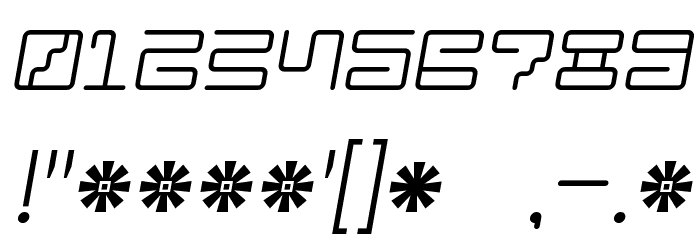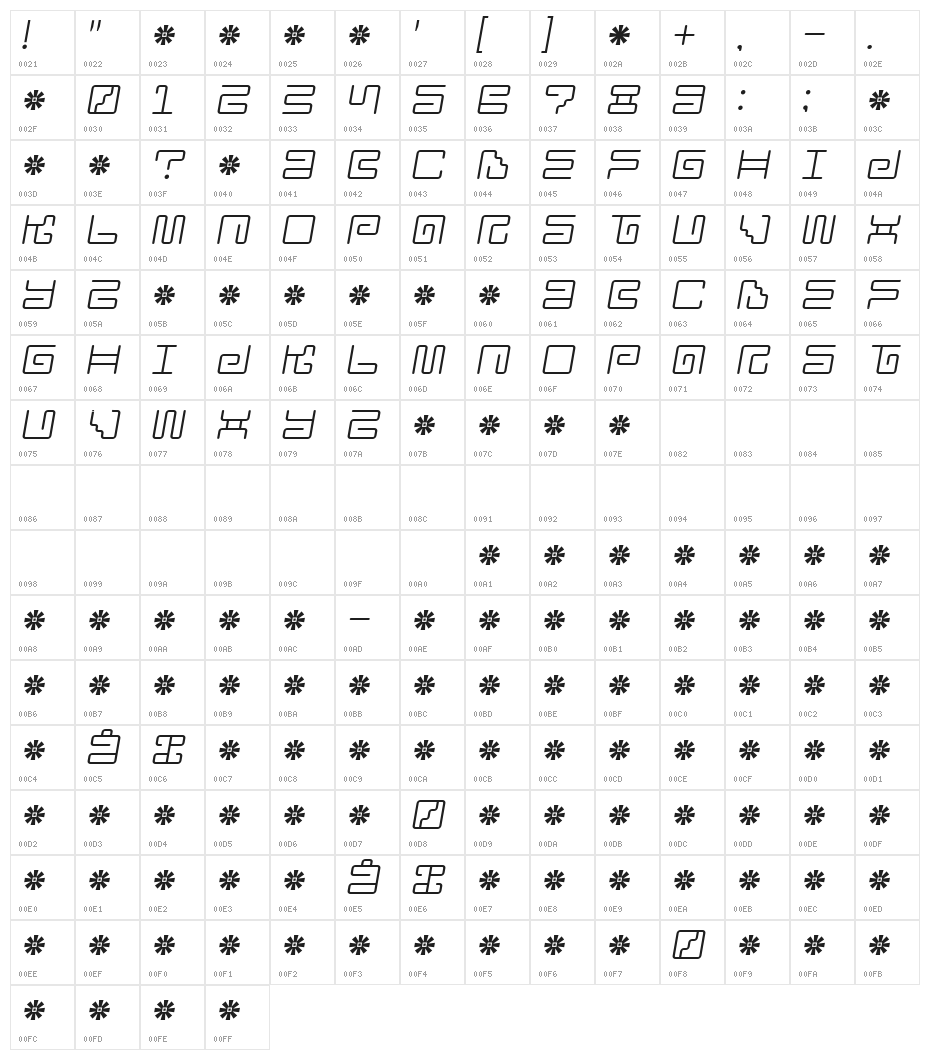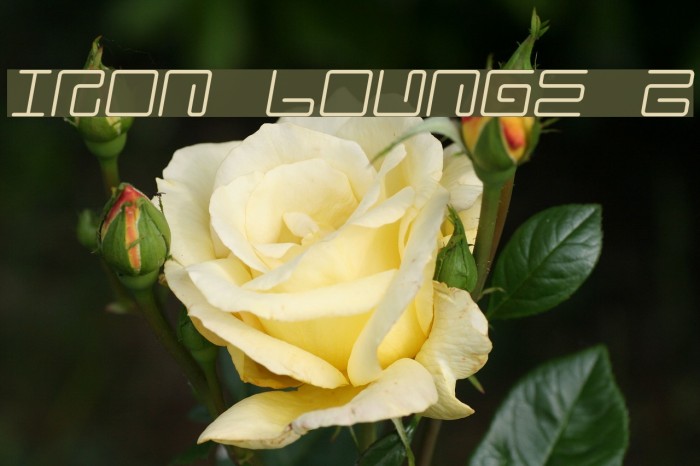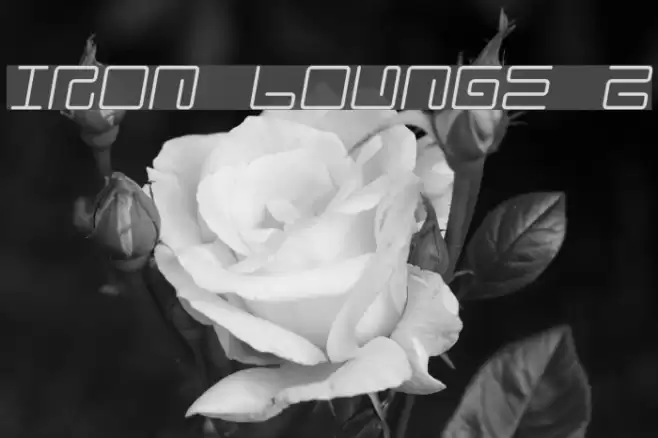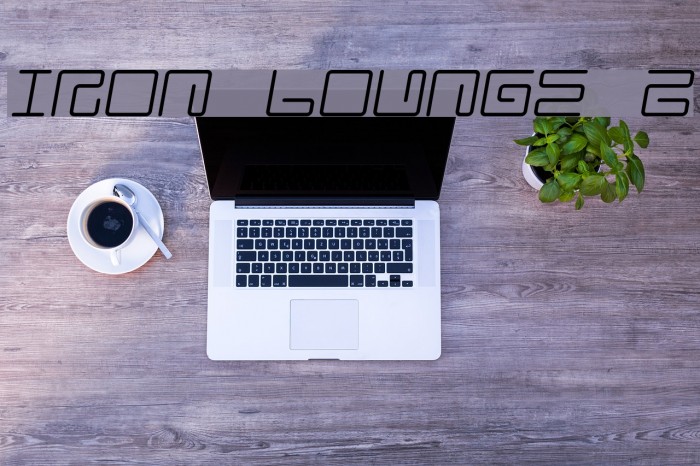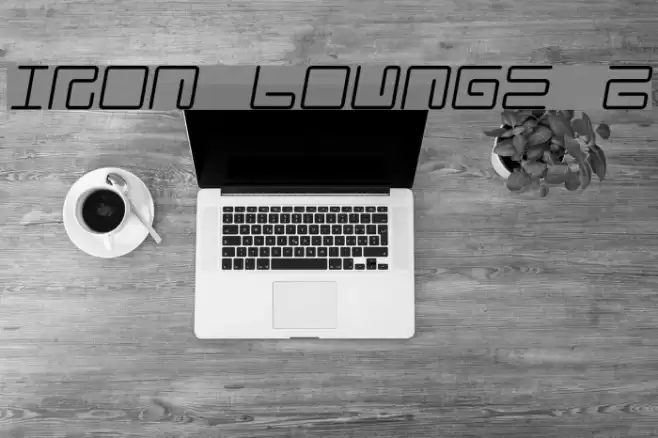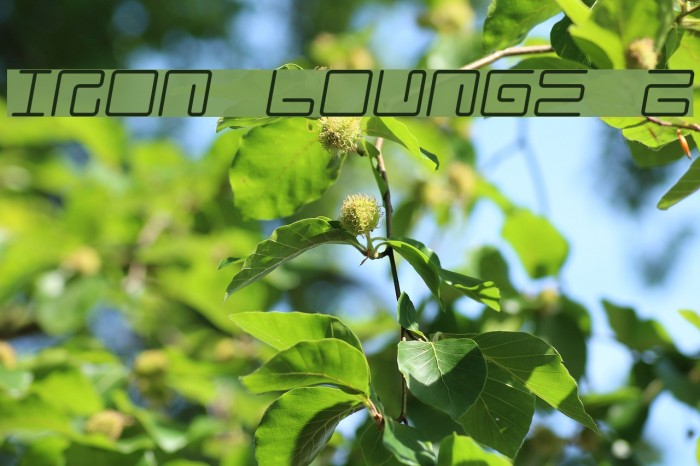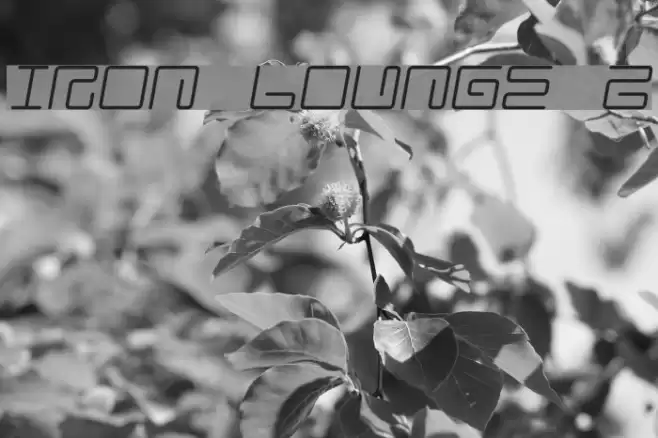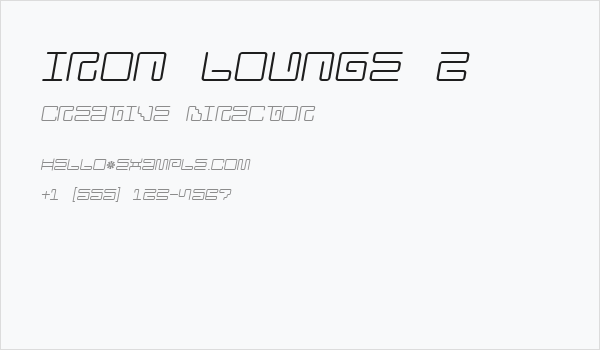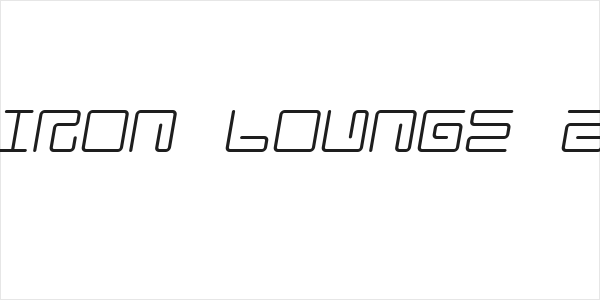
Iron Lounge 2 Font
Iron Lounge 2 Description
This font features a futuristic and geometric design with a distinct outline style. Each character is crafted with precision, showcasing a blend of sharp angles and smooth curves. The uppercase and lowercase letters maintain a consistent height, creating a uniform appearance. The numerals are designed to match the letterforms, ensuring a cohesive look across all characters. Special characters are stylized to complement the overall aesthetic, making this font suitable for modern and tech-themed projects. The open spaces within the characters add a unique touch, enhancing readability while maintaining a decorative appeal.
| Proposed Projects | Ideal for tech branding, sci-fi posters, digital interfaces, and modern logos. |